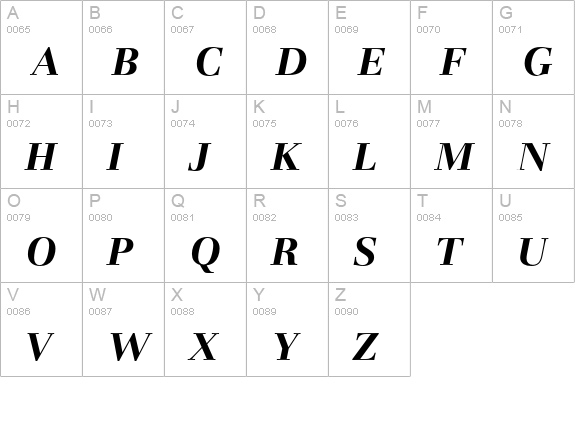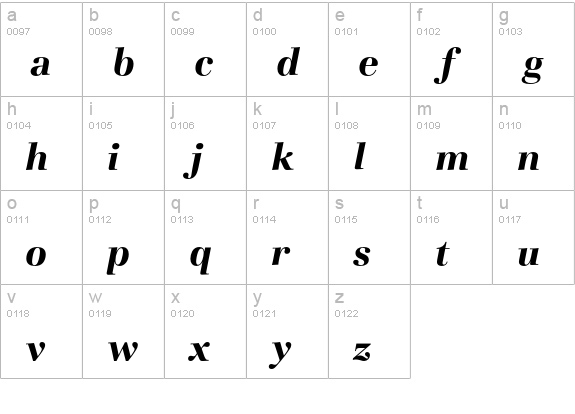
Basilia T Bold Italic Font Details
Basilia T Bold Italic is a strong, high-contrast, italic variant in the Basilia typeface family \xE2\x80\x94 well suited to headlines, attention-grabbing titles, and strong calls-to-action.
Basilia T Bold Italic is a modern and stylish font that exudes sophistication and elegance. The bold and italic combination adds a touch of flair to any design project, making it stand out from the rest. This versatile font is perfect for creating eye-catching headlines, logos, or branding materials. Best of all, Basilia T Bold Italic is available for free download at FontsMarket.com. With its sleek and contemporary design, this font is sure to elevate your projects to the next level. Whether you're designing for print or digital, Basilia T Bold Italic is a versatile choice that will make a lasting impression. Download it now and add a touch of class to your designs.